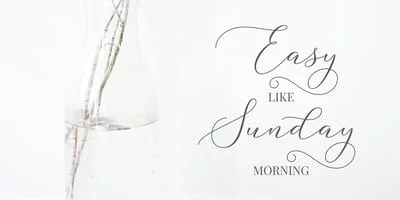
Yasmine Gardner Font
The Yasmine Gardner Font is an excellent choice for designs that aim for a sophisticated, feminine, and subtly elegant aesthetic. Imagine it gracing boutique branding, adding a delicate touch to cosmetics packaging, enhancing the beauty of fashion blog headers, or creating truly memorable event invitations. It's also ideal for wedding stationery, luxury product labels, signature watermarks on photography, and any project where a refined and graceful handwritten feel is desired.
What makes the Yasmine Gardner Font so exciting is its unique blend of personal charm and polished artistry. Its gentle flow and elegant letterforms convey a sense of authenticity and bespoke craftsmanship. This font doesn't just present text; it adds a touch of intimate beauty, making every word feel thoughtfully penned and elevating the overall visual experience with its distinctive, refined character.
The Yasmine Gardner Font typically offers a versatile range of options to support diverse creative needs. You can often find a Regular weight, frequently accompanied by an array of alternate characters, ligatures, and swashes. These additional glyphs allow for extensive customization, enabling designers to create unique and visually appealing compositions that truly reflect the desired sentiment. For those seeking a truly graceful and personal typeface, the Yasmine Gardner Font provides an exceptional opportunity to add a touch of refined elegance to your next design.